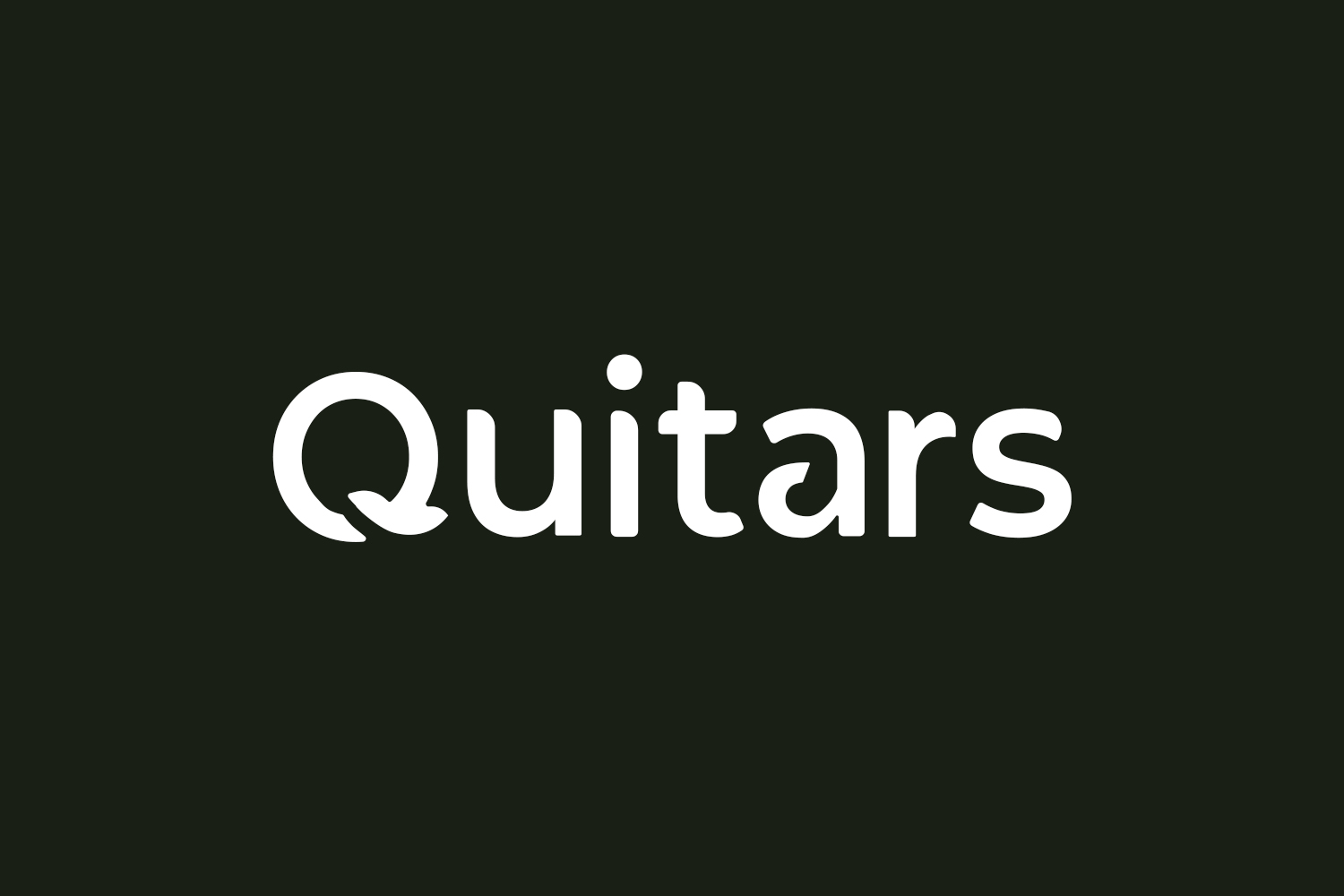
Quitars Free Font is ideal for achieving a contemporary aesthetic. With a casual touch within its modern typeface, Quitars effortlessly infuses personality into your designs, making it the perfect choice for a stylish and modern appearance. Download the font for free if you need it for personal use or purchase the full version for commercial use.
Designed by Arliyan Creative